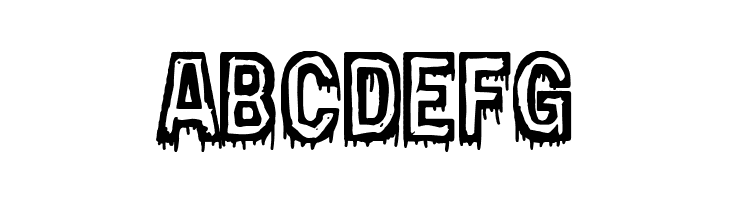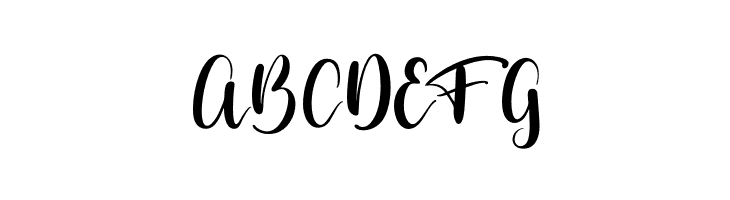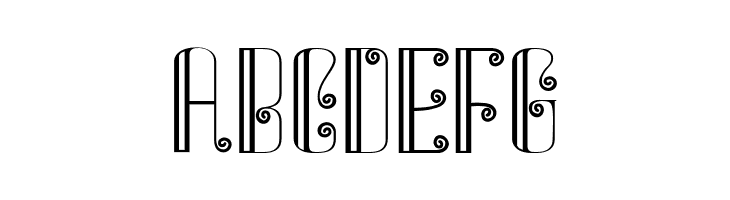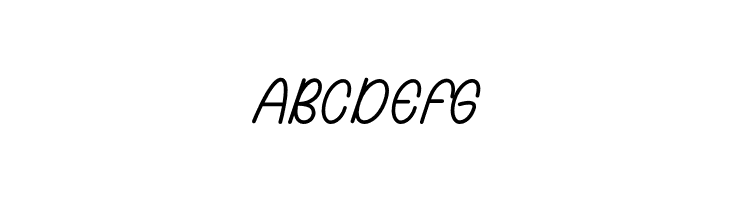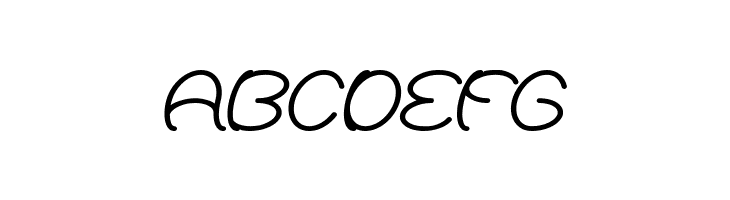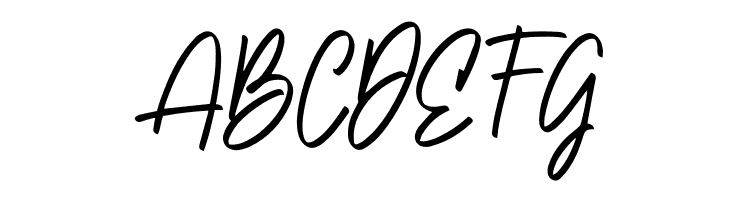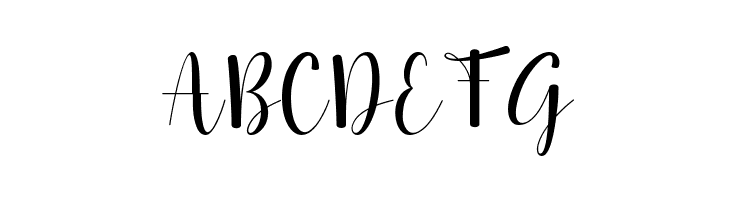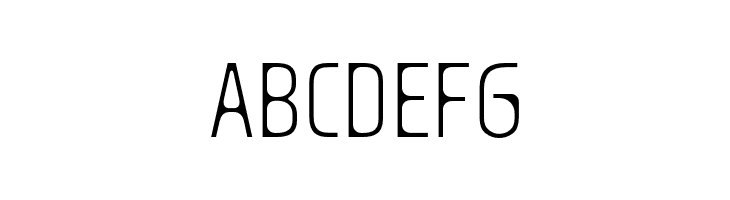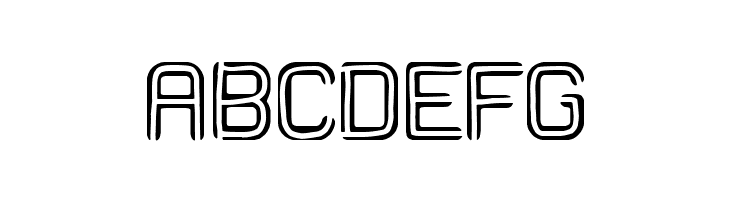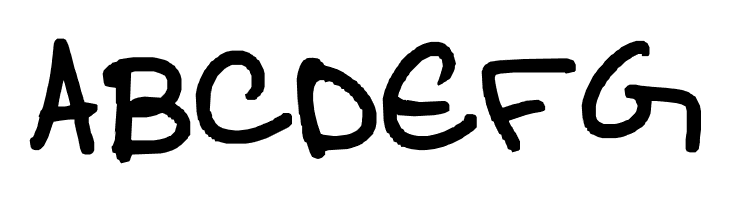
Naskh Font
A decorative and ornate font with intricate designs.
Naskh Black Font
A bold, high-contrast font with a modern yet classic style.
Naskh Cheft Kham Font
A refined and elegant script font with a traditional Naskh style.
Naskh Nay Font
A classic serif font with bold strokes and high contrast, ideal for formal uses.
Naskh Plain Font
A traditional Arabic script with smooth, flowing lines and moderate contrast, ideal for readability.
Naskh Qhalam Font
An elegant and traditional Arabic script font with flowing lines.
Naskh Type I Font
A classic serif font with elegant strokes and refined details.
Naskh Type II Font
A traditional and elegant script with flowing curves and intricate details.
Naspad Everyday Font
A handwritten, casual script font suitable for informal and playful designs.
Nasser Font
A bold, geometric stencil font with an industrial feel.
Nastaliqh Font
A cursive, calligraphic font with elegant curves and a dynamic style.
Nastar Font
A flowing, cursive font with elegant loops and swashes, perfect for creative projects.
Nastar Font
A modern, cursive font with a handwritten, elegant style.
NASTAR PIE 1 Font
A decorative and modern font with elegant swirls and narrow, tall characters.
Nastary Font
A playful, bold handwritten font with smooth curves and rounded edges.
Nasty Font
An ornate and decorative font with intricate, swirling embellishments.
Nasty Dusty Font
A rugged, distressed hand-drawn font with an urban, gritty feel.
Nasty Tuesdays Font
A bold, dripping font with a dramatic and edgy style.
Nasty Works Company Font
Outlined geometric sans-serif with double-line strokes and rounded corners.
NastyHorrorShow Font
A whimsical and spooky horror-themed decorative font.